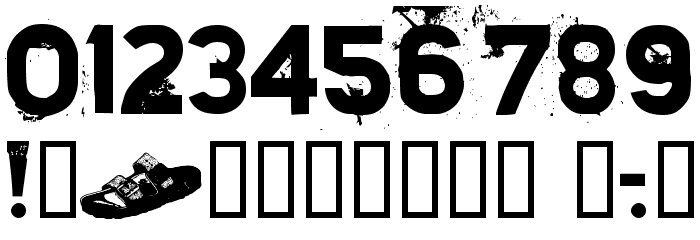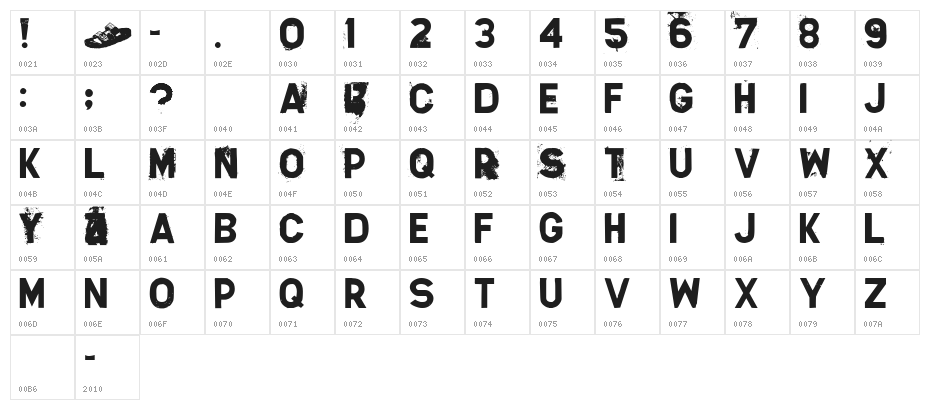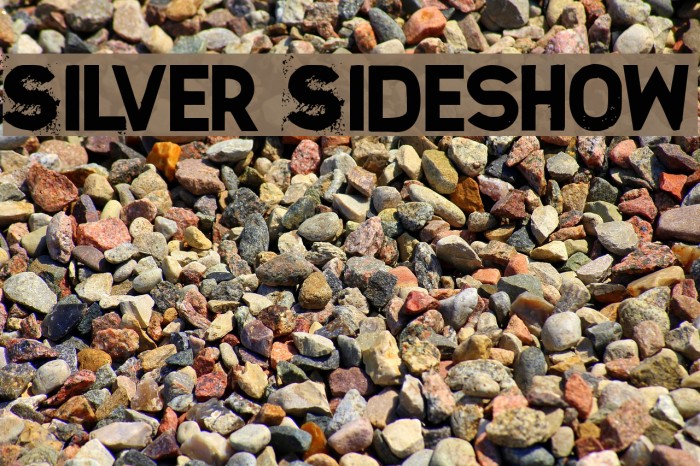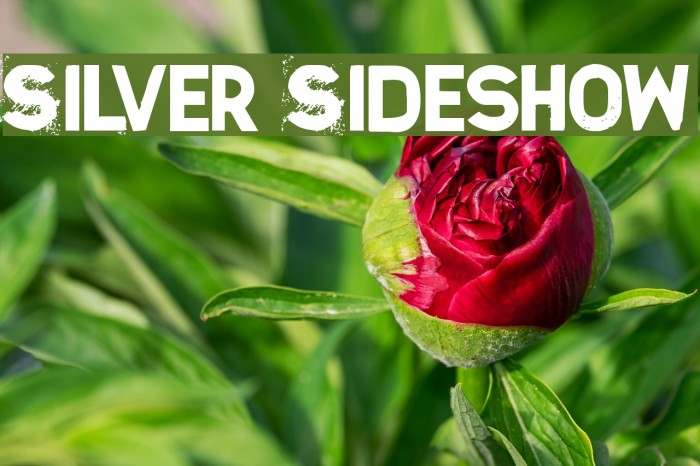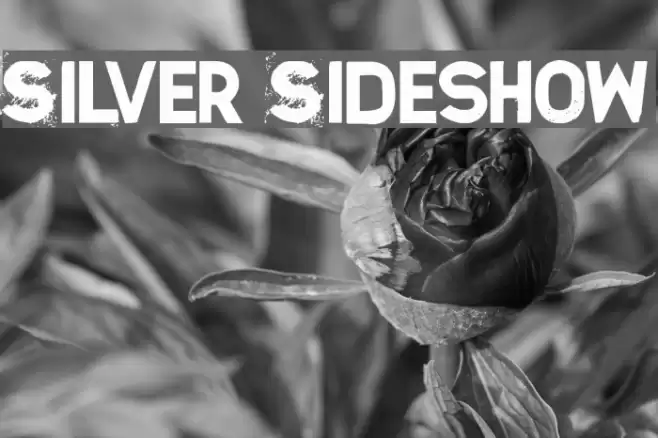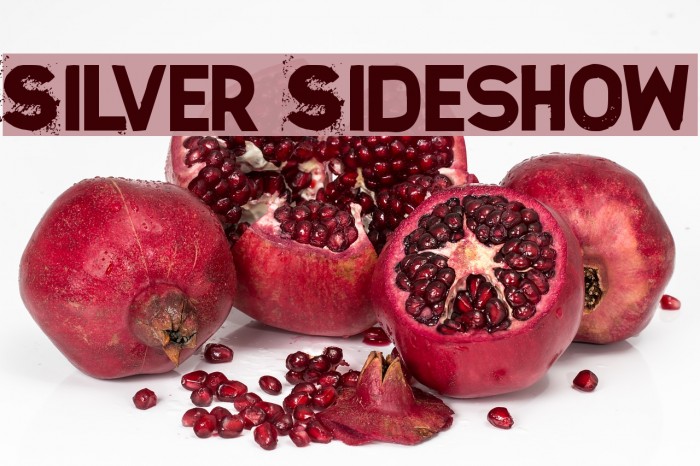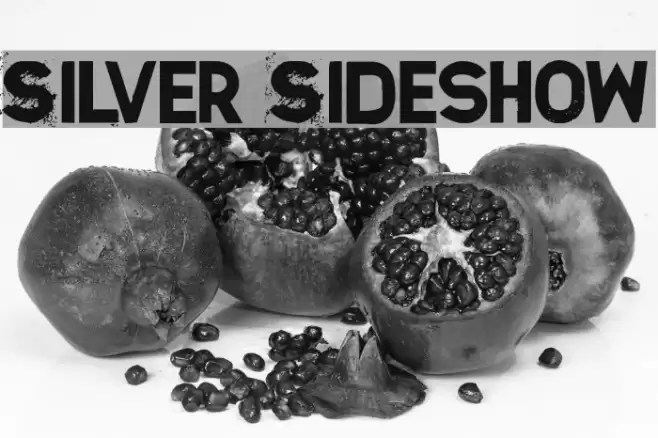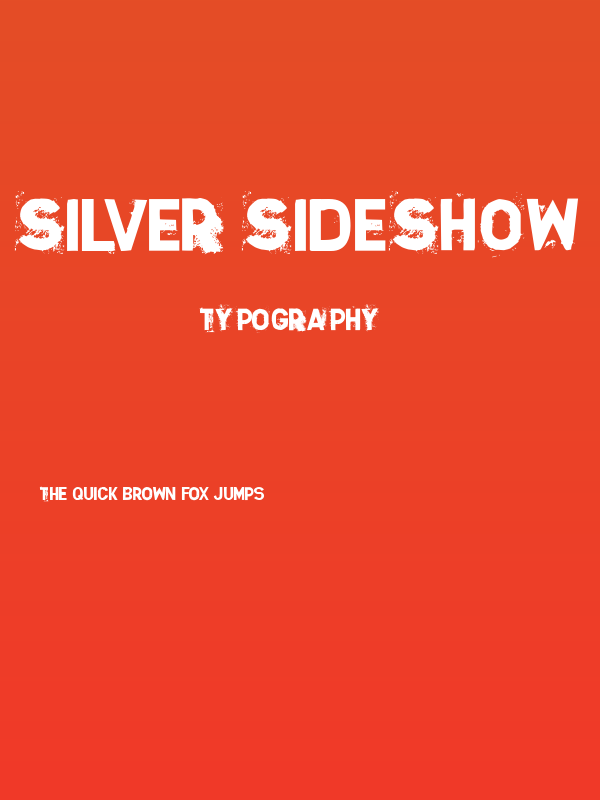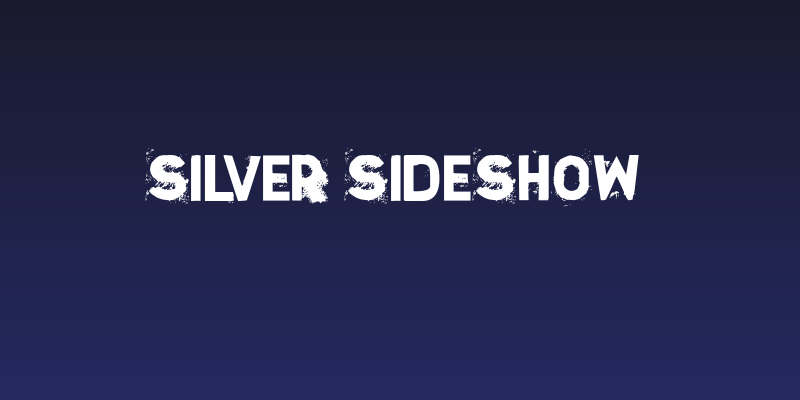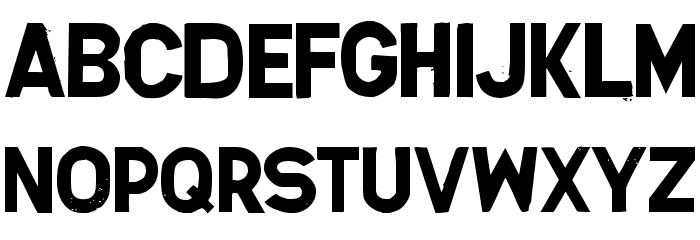
Silver Sideshow Font
Silver Sideshow Description
This font features a bold and distressed style, with a grunge texture that gives it a rugged and worn appearance. The uppercase letters are bold and impactful, while the lowercase letters maintain a consistent weight, providing a cohesive look. The numbers and special characters follow the same distressed aesthetic, making the font suitable for designs that require a vintage or industrial feel. The texture adds a unique character, making it stand out in any design project.
| Proposed Projects | Ideal for posters, album covers, branding for edgy products, and any project requiring a vintage or industrial look. |